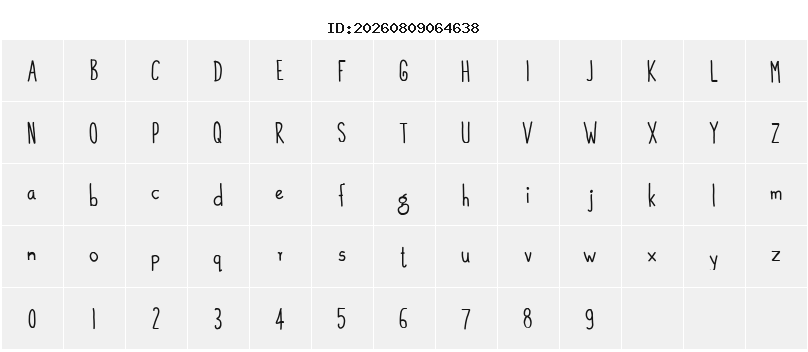
Peyarili Preview
• Font Name: Peyarili
• Full Font Name: Peyarili
• Designer: Tharique Azeez
About Peyarili.ttf
Peyarili.ttf is a modern, elegant sans-serif font designed for ultimate readability and visual harmony. Perfect for branding, headlines, web design, and print materials.